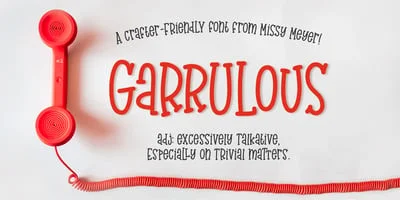
Garrulous Font
Garrulous Font is perfect for social media platforms, communication apps, chatty blog designs, conversational marketing campaigns, storytelling publications, podcast branding, talk show graphics, community forum interfaces, narrative-driven content, and expressive applications that celebrate the art of conversation and engaging verbal communication.
What makes Garrulous Font truly exciting is its masterful capture of conversational energy and storytelling charm that brings written text to life with the warmth and expressiveness of engaging dialogue. This exceptional typeface embodies the spirit of great conversation with its animated letterforms and talkative character that convey both verbal fluency and social warmth. The font's communicative personality and expressive nature make it perfect for brands and projects that need to create authentic connections through the power of engaging storytelling and meaningful dialogue.
The Garrulous Font family includes multiple weights and styles: Light, Regular, Medium, Bold, and Italic variations designed for maximum conversational impact. Each family member maintains the distinctive talkative character while offering flexibility for diverse communication applications and social branding systems. The comprehensive character set supports expressive typography needs and conversational design elements, making it suitable for international dialogue communications.
When you choose Garrulous Font, you're selecting a typography conversation starter that transforms ordinary text into engaging social experiences. This expressive typeface excels in applications where communication and storytelling are fundamental, delivering exceptional verbal energy while maintaining excellent readability for extended dialogue. Whether you're designing social platforms, storytelling content, conversational brands, or community materials, this font provides the talkative charm and communicative excellence that resonates with audiences who appreciate authentic conversation, engaging storytelling, and the social power of meaningful verbal expression.